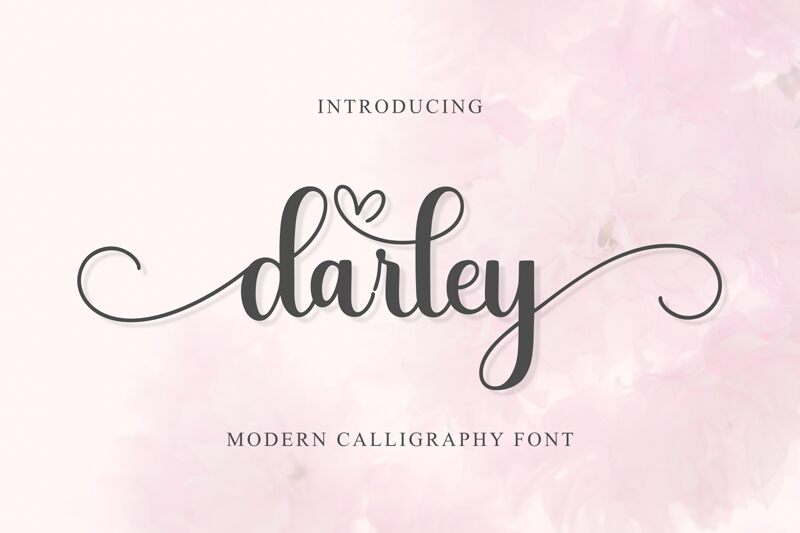
Darley, a captivating calligraphic font crafted by Maqsum, exudes an elegant sophistication. The fluid, sweeping strokes and graceful ligatures create a mesmerizing visual experience, evoking a sense of refined artistry. This font's distinctive character shines through in its delicate balance between modern flair and timeless charm, making it a versatile choice for a wide range of design applications.
Darley's calligraphic elegance lends itself effortlessly to branding, wedding invitations, book covers, and other projects that require a touch of timeless allure. Its expressive letterforms and seamless transitions between characters make it an ideal selection for creating captivating headlines, impactful logotypes, and eye-catching typographic compositions.